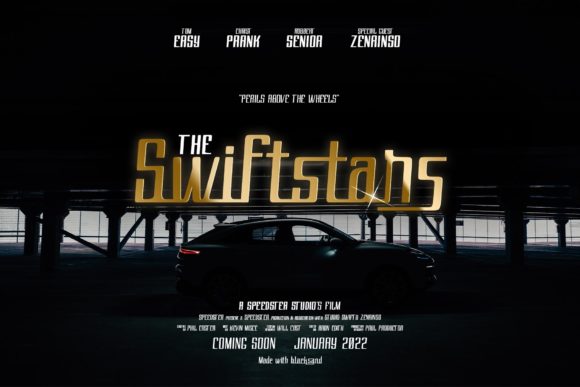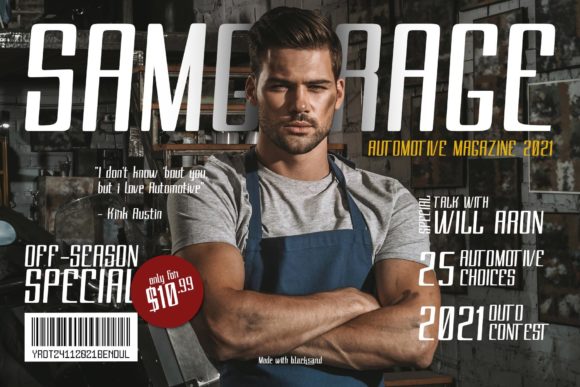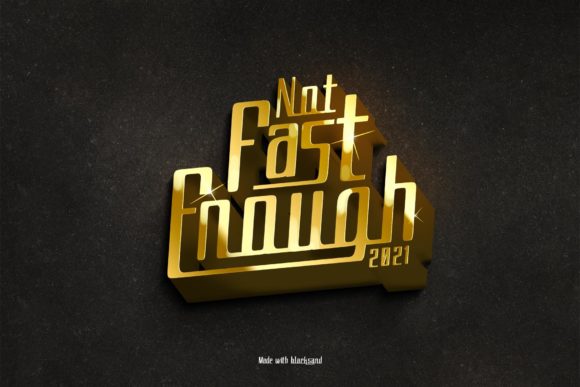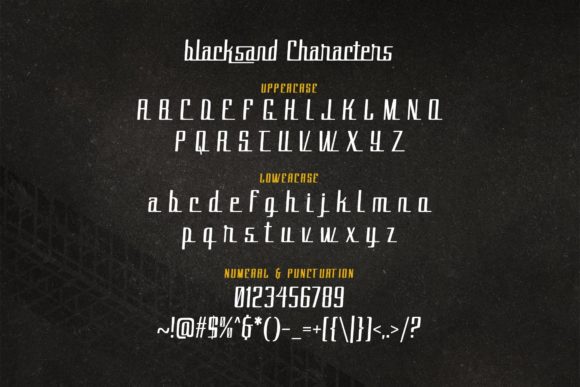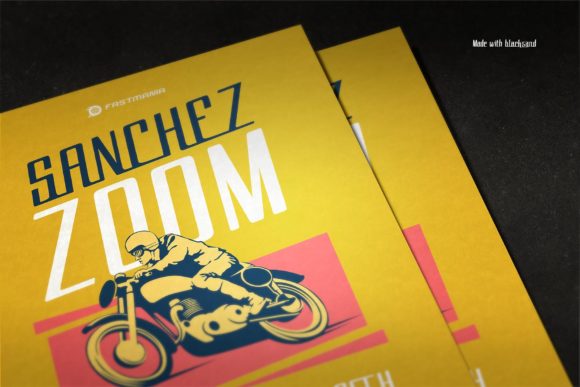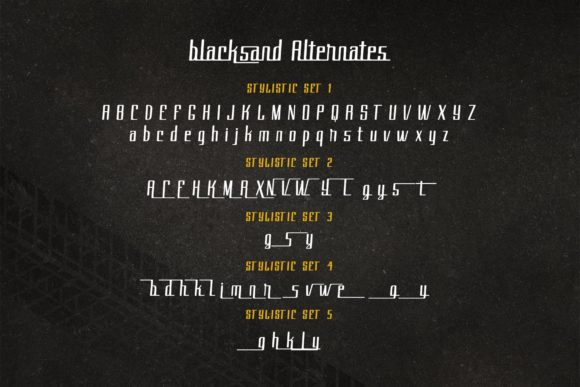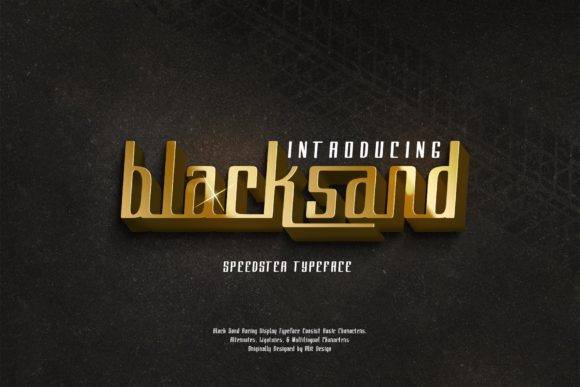
Unleash Your Creativity with Black Sand Font: The Ultimate Display Font for Sporty Designs
Are you a designer or crafter looking for a font that can add a touch of speed and excitement to your designs? Look no further than the Black Sand Font, a cool display font inspired by sporty posters and racing ads. This bold and strong font is perfect for making racing-themed designs that require a sense of dynamism and energy.
What is Black Sand Font?
The Black Sand Font is a display font that is specifically designed to evoke the feeling of speed and competition. Its bold and strong lines are reminiscent of sporty posters and racing ads, making it an ideal choice for designers who want to create eye-catching and dynamic designs. Whether you’re working on a logo design, car sticker, racing event title, or any other project that requires a sporty touch, the Black Sand Font is the perfect choice.
Key Features of Black Sand Font
So, what makes the Black Sand Font so special? Here are some of its key features:
- Bold and Strong Design: The Black Sand Font has a bold and strong design that gives an impression of speed and energy.
- Perfect for Racing-Themed Designs: The Black Sand Font is specifically designed for racing-themed designs, making it perfect for logo designs, car stickers, racing event titles, and more.
How to Use Black Sand Font in Your Designs
Using the Black Sand Font in your designs is easy and straightforward. Here are some ideas to get you started:
- Logo Designs: Use the Black Sand Font to create bold and eye-catching logos for racing teams, car companies, or any other business that requires a sporty touch.
- Car Stickers: Create car stickers that stand out from the crowd with the Black Sand Font.
- Racing Event Titles: Use the Black Sand Font to create dynamic and attention-grabbing titles for racing events.
- Social Media Graphics: Use the Black Sand Font to create engaging social media graphics that require a sporty touch.
Benefits of Using Black Sand Font
So, why should you choose the Black Sand Font for your designs? Here are some benefits of using this amazing font:
- Unique and Eye-Catching Designs: The Black Sand Font allows you to create unique and eye-catching designs that stand out from the crowd.
- High-Quality Design: The Black Sand Font is designed with high-quality in mind, ensuring that your designs look professional and polished.
- Versatility: The Black Sand Font can be used in a variety of designs, from logo designs to social media graphics.
In conclusion, the Black Sand Font is an amazing display font that is perfect for designers and crafters who want to add a touch of speed and excitement to their designs. With its bold and strong design, PUA encoding, and versatility, this font is ideal for creating racing-themed designs that require a sense of dynamism and energy. So, why wait? Download the Black Sand Font today and start creating unique and eye-catching designs that stand out from the crowd!